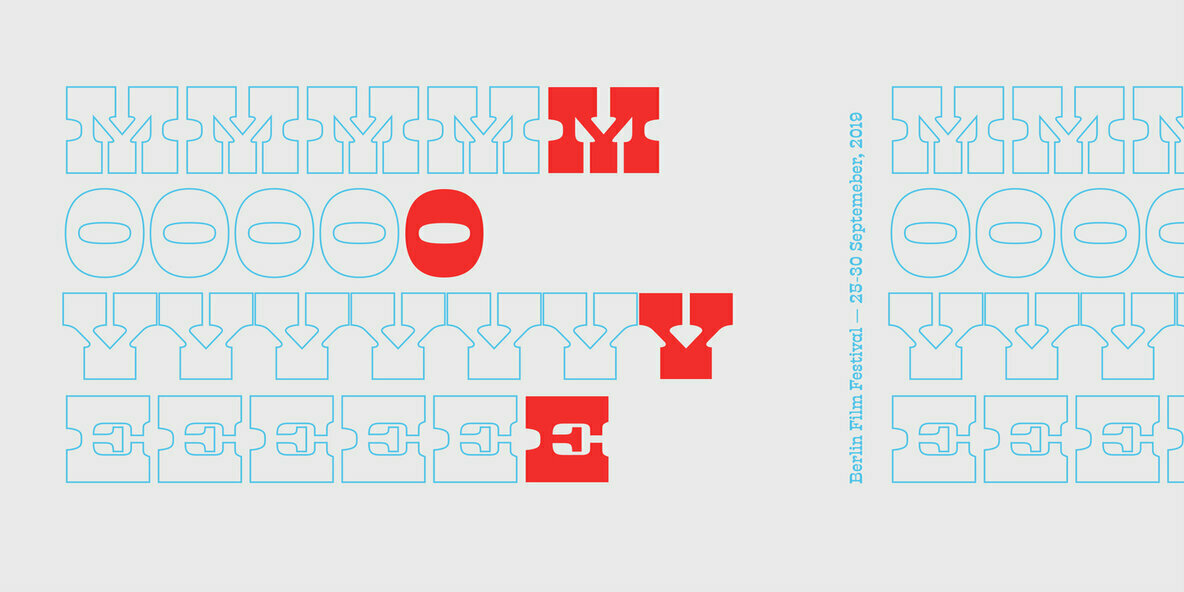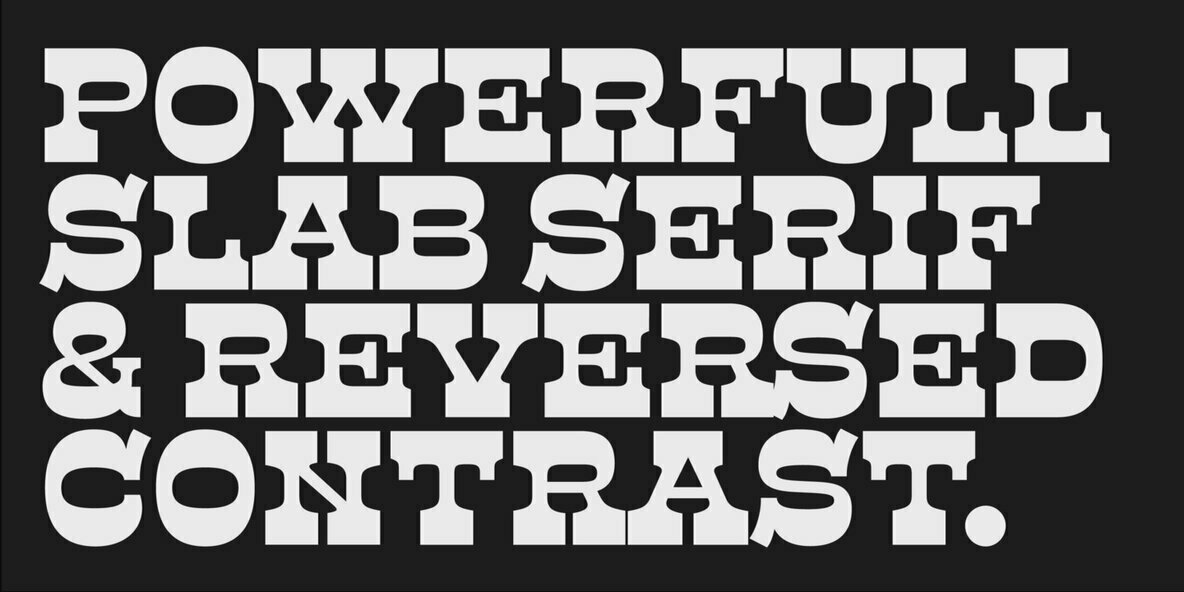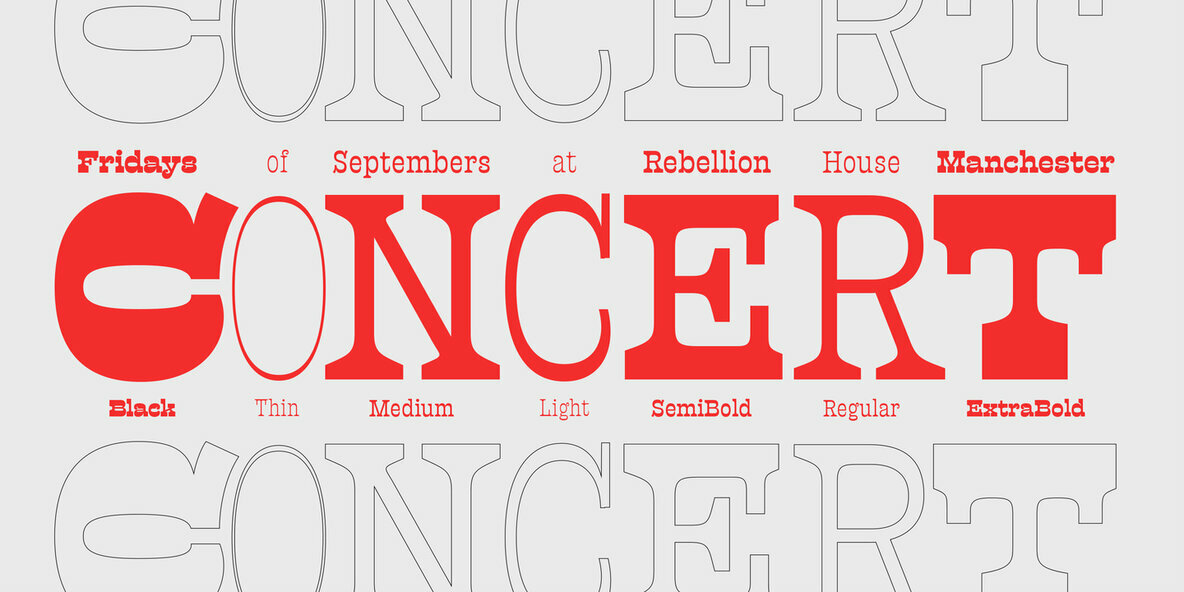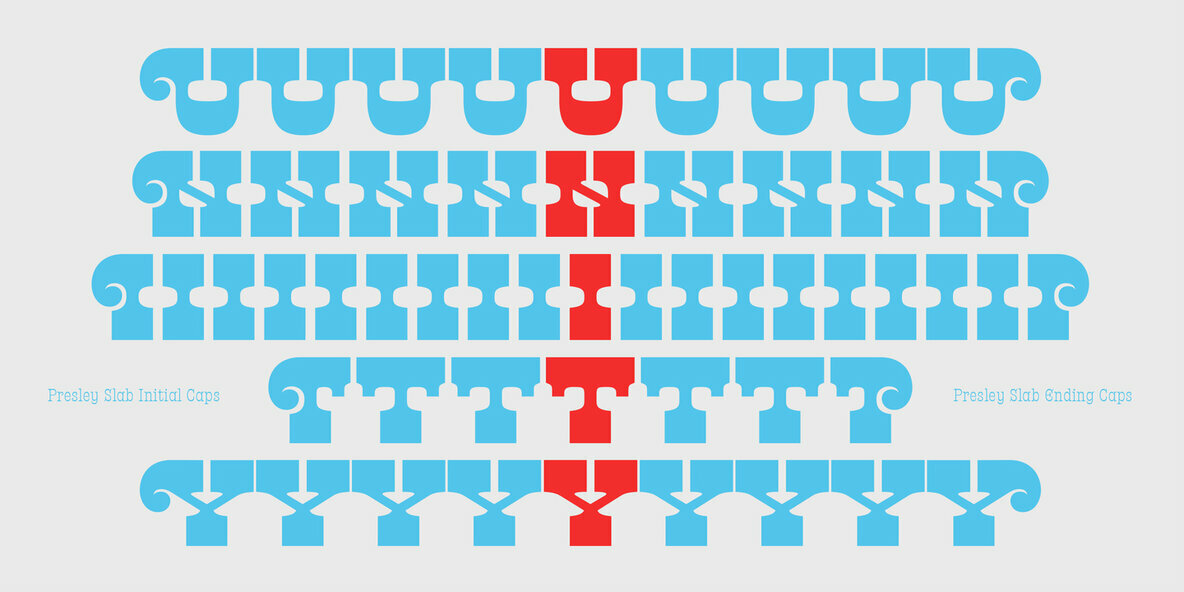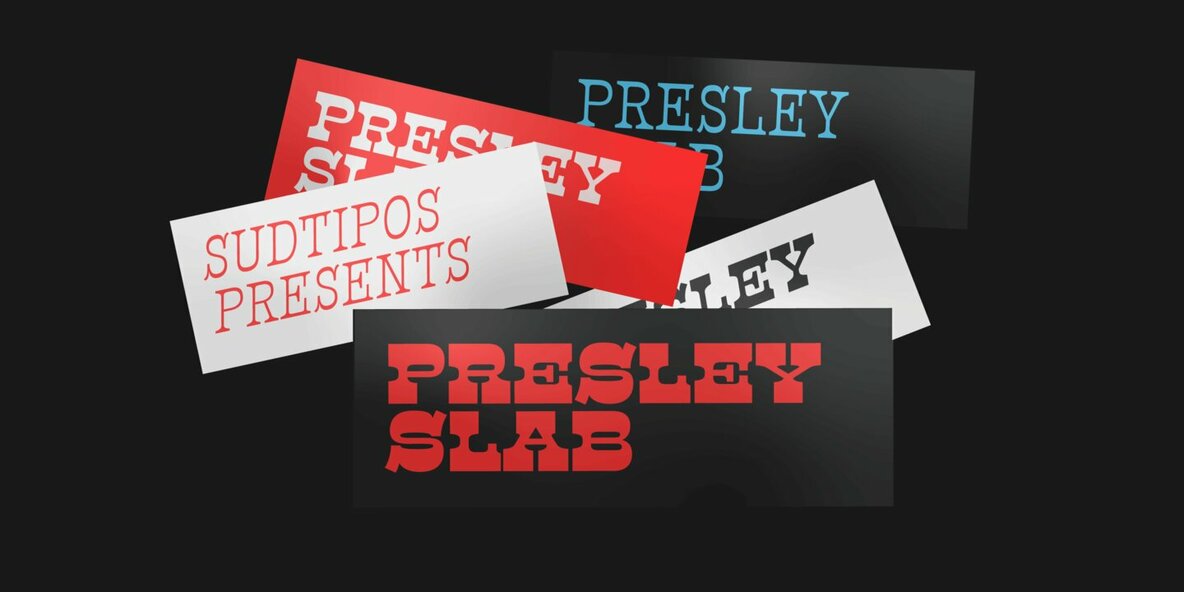
Presley Slab Font
The lightest weight of Presley Slab takes inspiration from a late nineteenth-century type specimen, but what began as a decorative and delicate contrasted serif stirred Alejandro Paul’s imagination to conjure voluptuous reverse contrasted letterforms. These became the heaviest weight of Presley Slab, which nods to the lacquered hairstyles from the birth of rock ’n roll with its idiosyncratic ball terminals. Its playful allure and swagger remains visible in the weights that stand between these two extremes but as the curls loosened, many things happened in the design process including the appearance of swashes and alternates.
Presley Slab’s personality has breadth; it is a fun, confident and contemporary palette of letters that will perfectly perform for any job, from editorial design to branding. The Extra Bold and Black weights are a powerful option at large sizes for use on posters and billboards; the graceful Thin and Extra Light weights are delicate options for packaging design or fashion branding. Despite it conjuring images of mid-century music halls, Presley Slab is also staunchly European in it’s aesthetic, offering everything from good-humour to elegance with its unique touches.